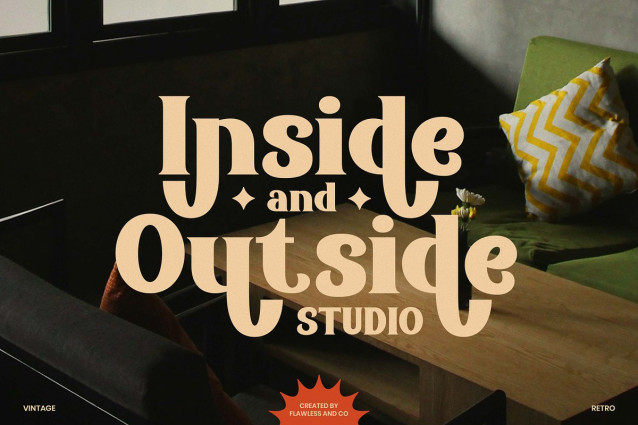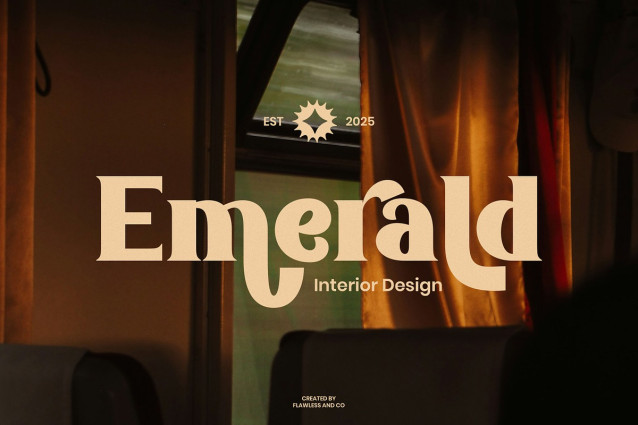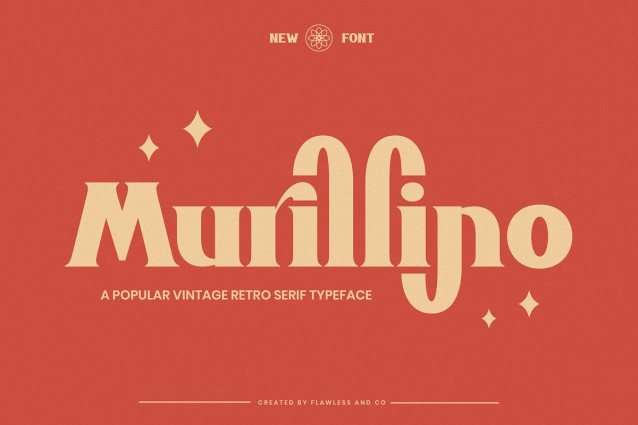
Murillino Font
Murillino Font is a retro serif typeface that blends nostalgic warmth with classic sophistication. Its refined serifs, gentle curves, and thoughtful letterforms evoke a sense of vintage elegance—perfect for designers looking to bring personality and character into their work. Designed to shine in applications like branding, editorial design, packaging, and signage, Murillino captures the spirit of the past while remaining versatile for modern use. With its balanced proportions, charming alternates, and subtle decorative flair, it adds a distinctive touch to any visual composition. Whether you’re creating a logo, headline, or promotional design, Murillino delivers a stylish and memorable typographic presence.